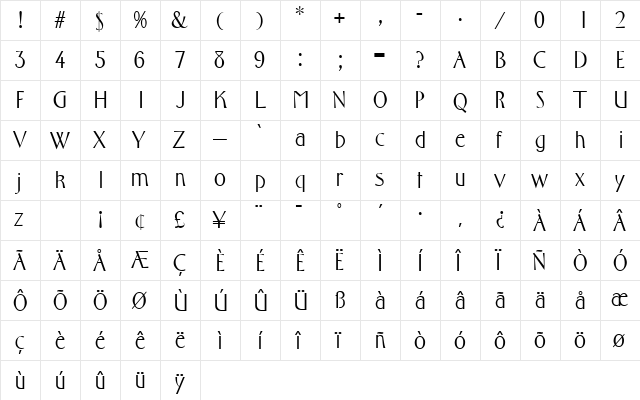
Firenze SF Regular
Design Context for Firenze SF Typeface
Firenze SF offers clean, dependable letterforms without strong stylistic allegiance, making it a practical choice for designers who need flexibility.